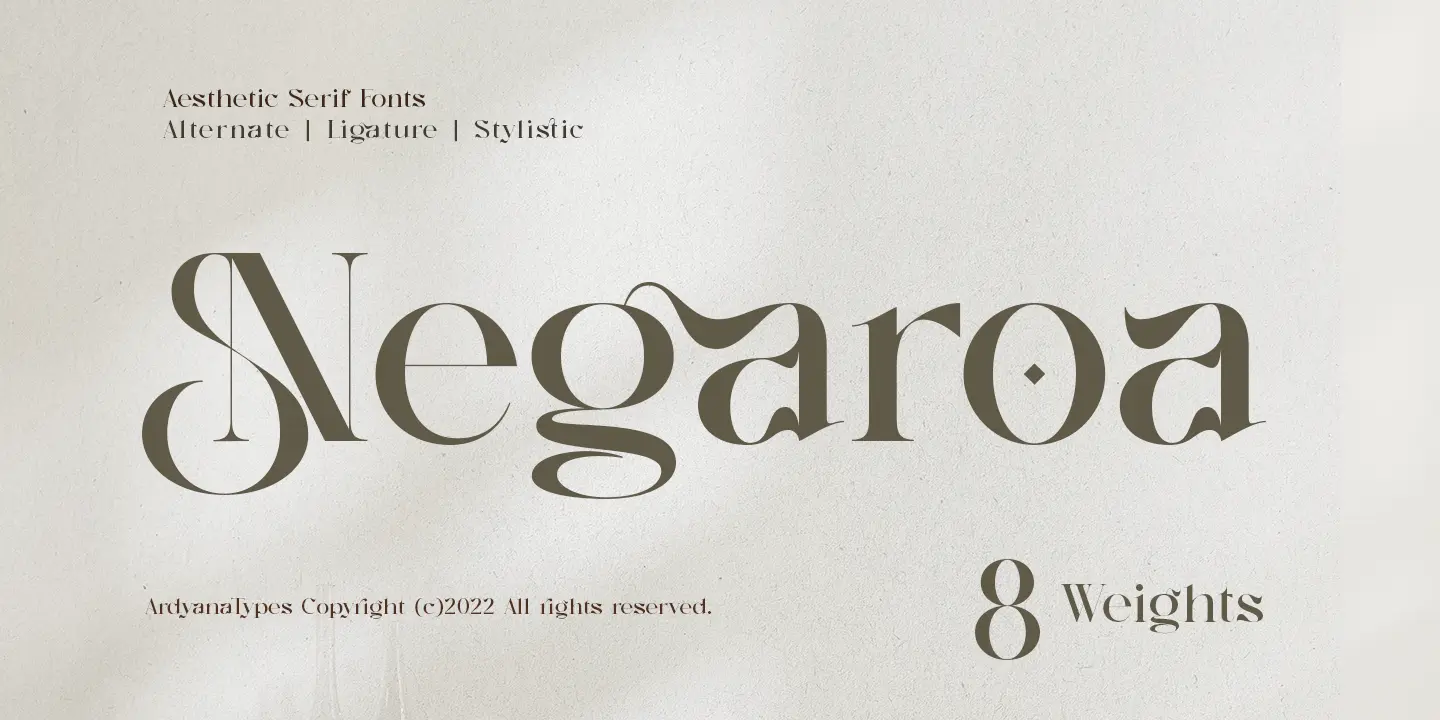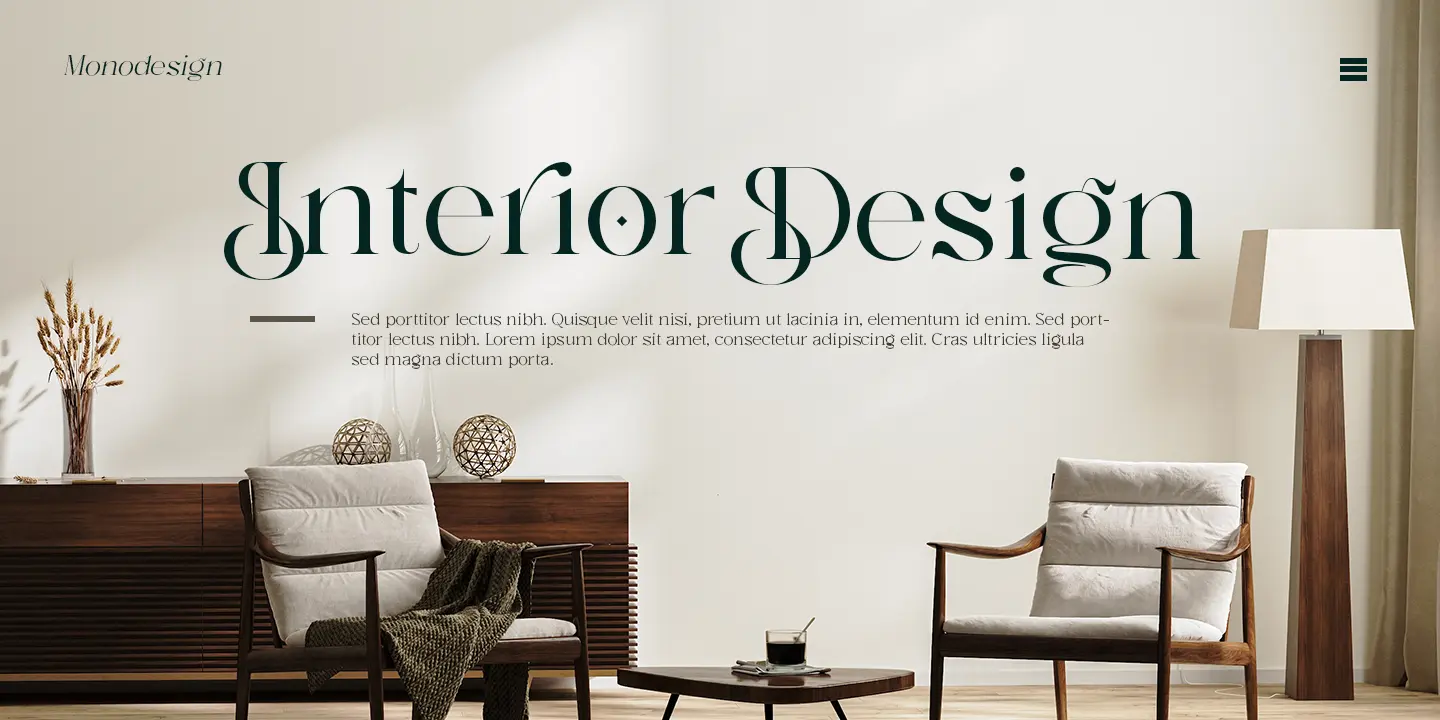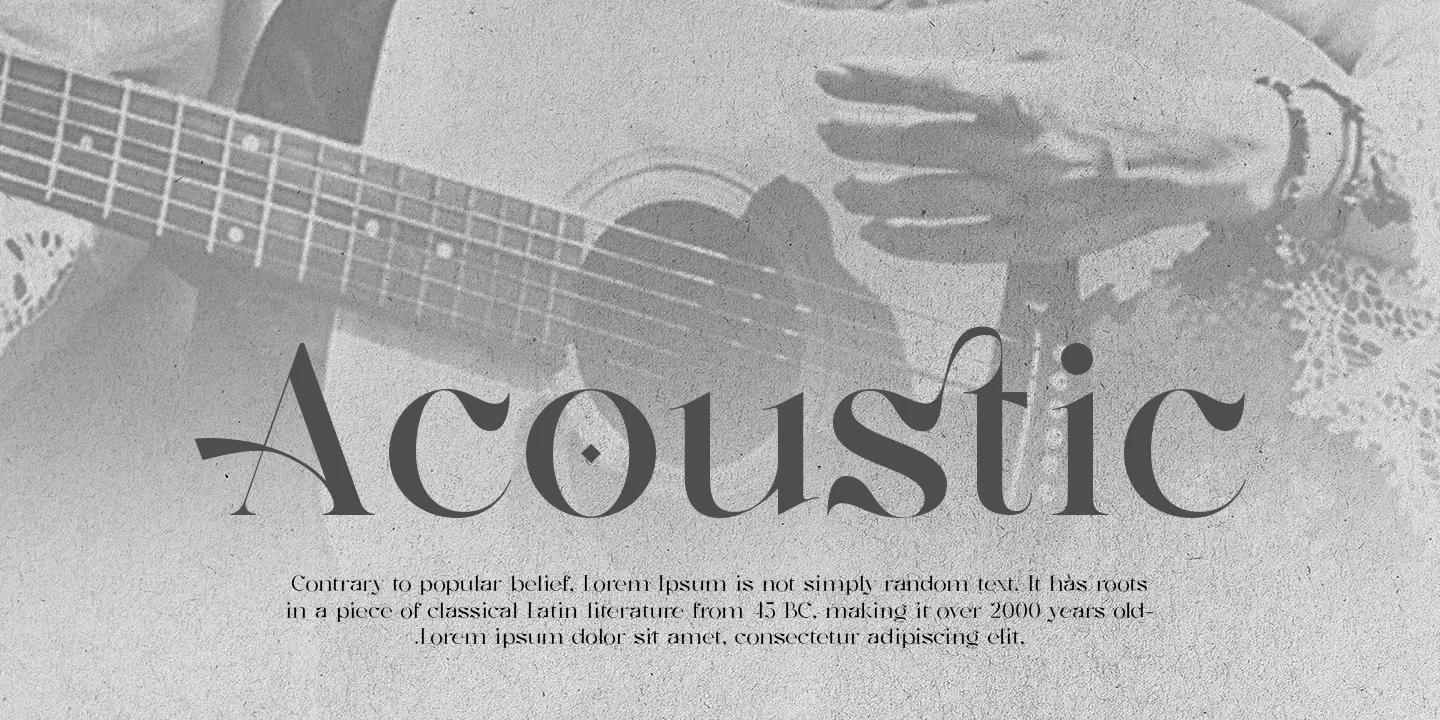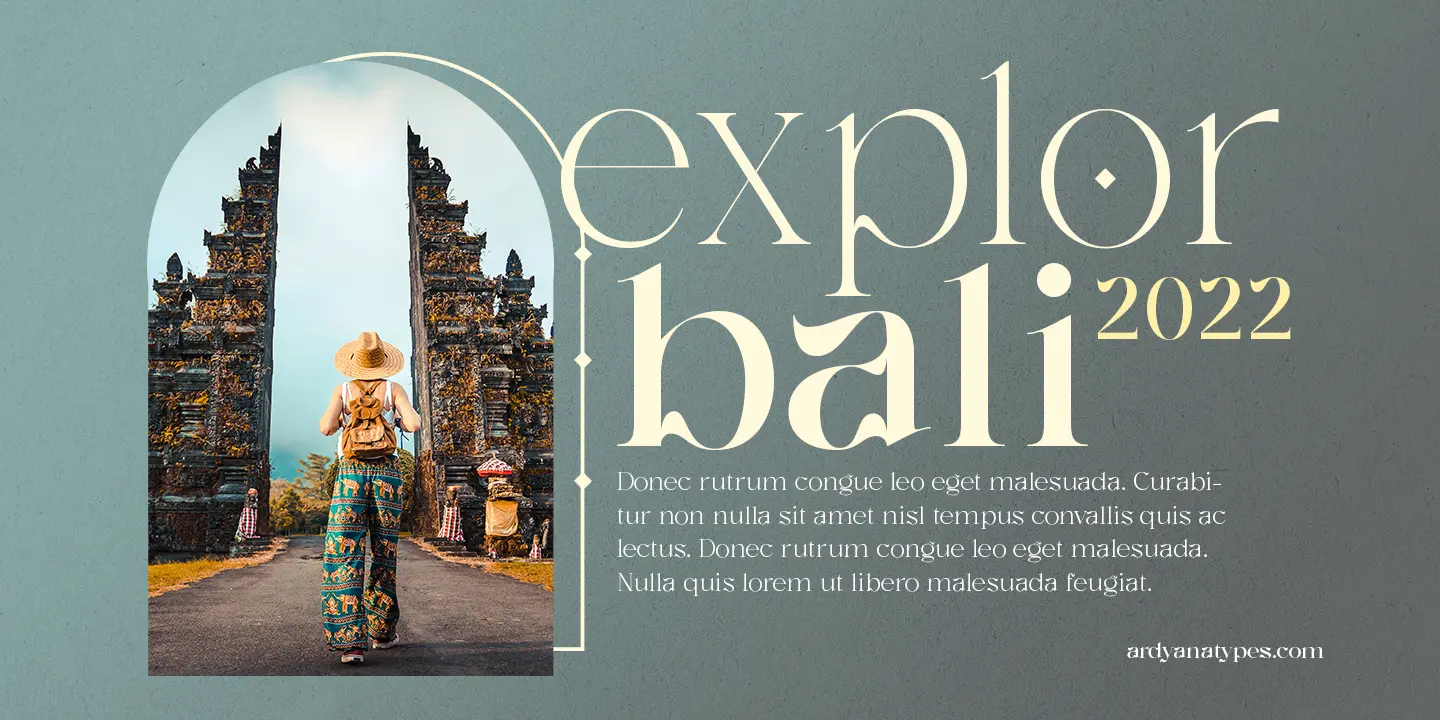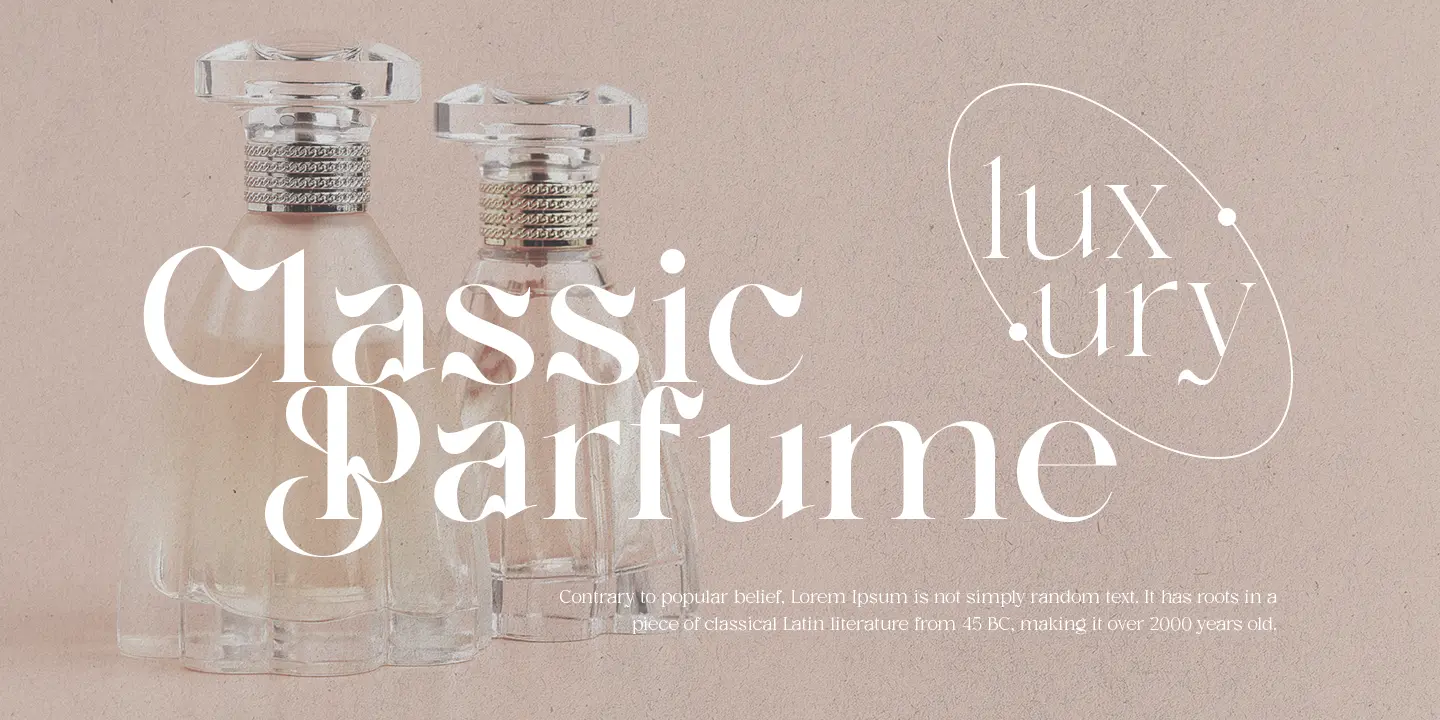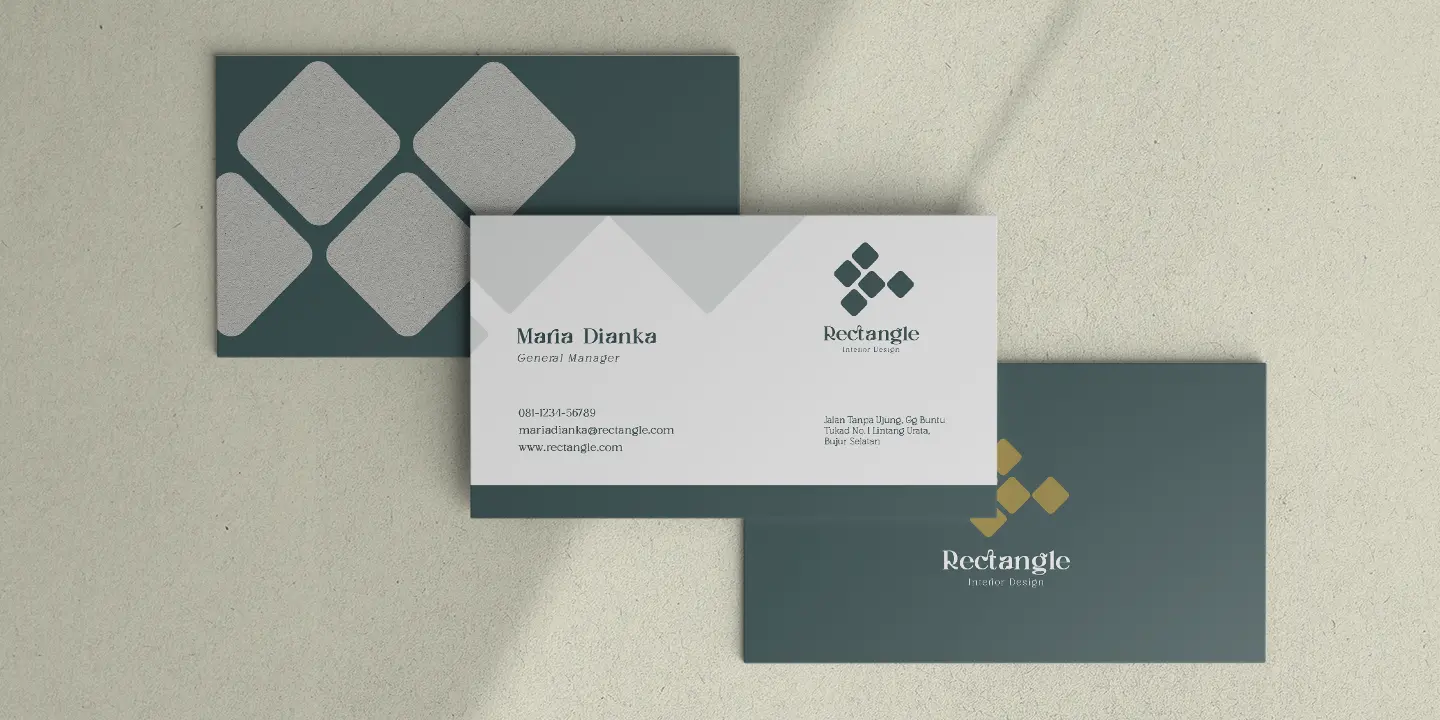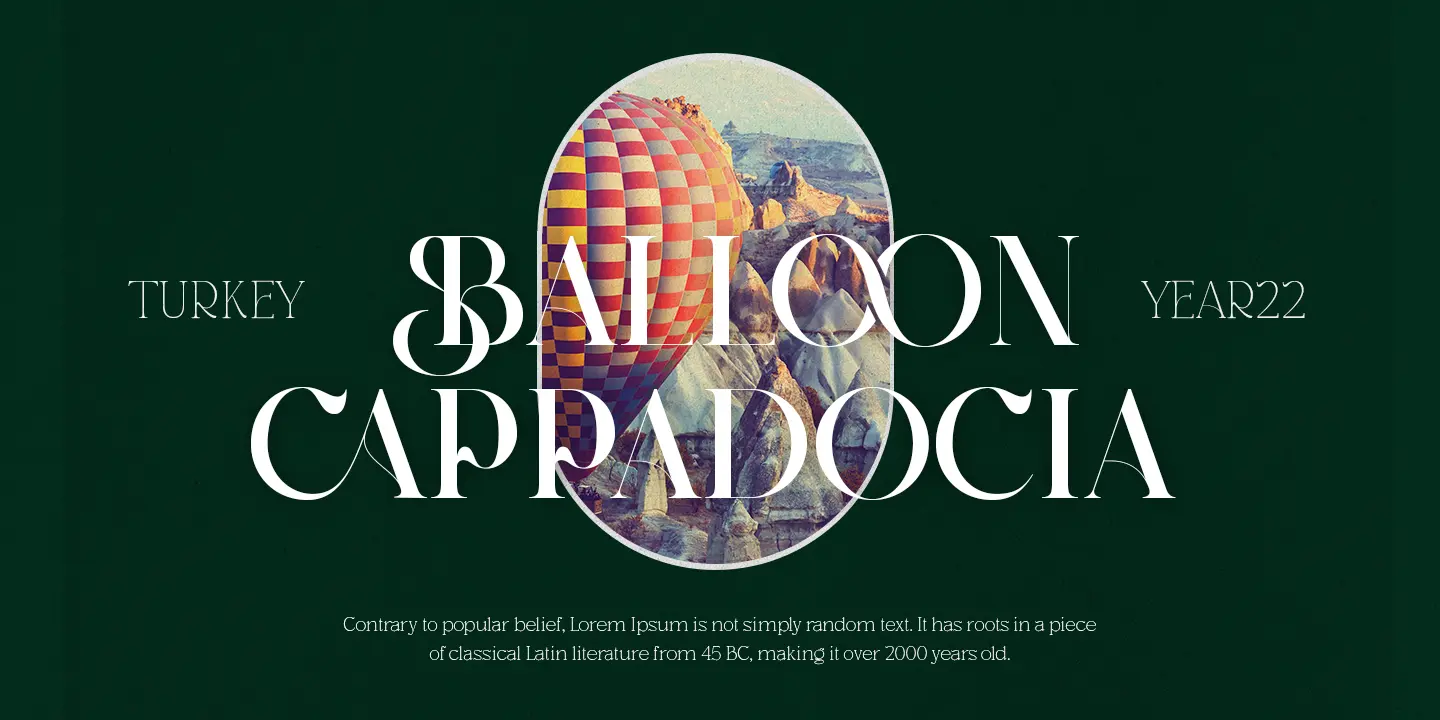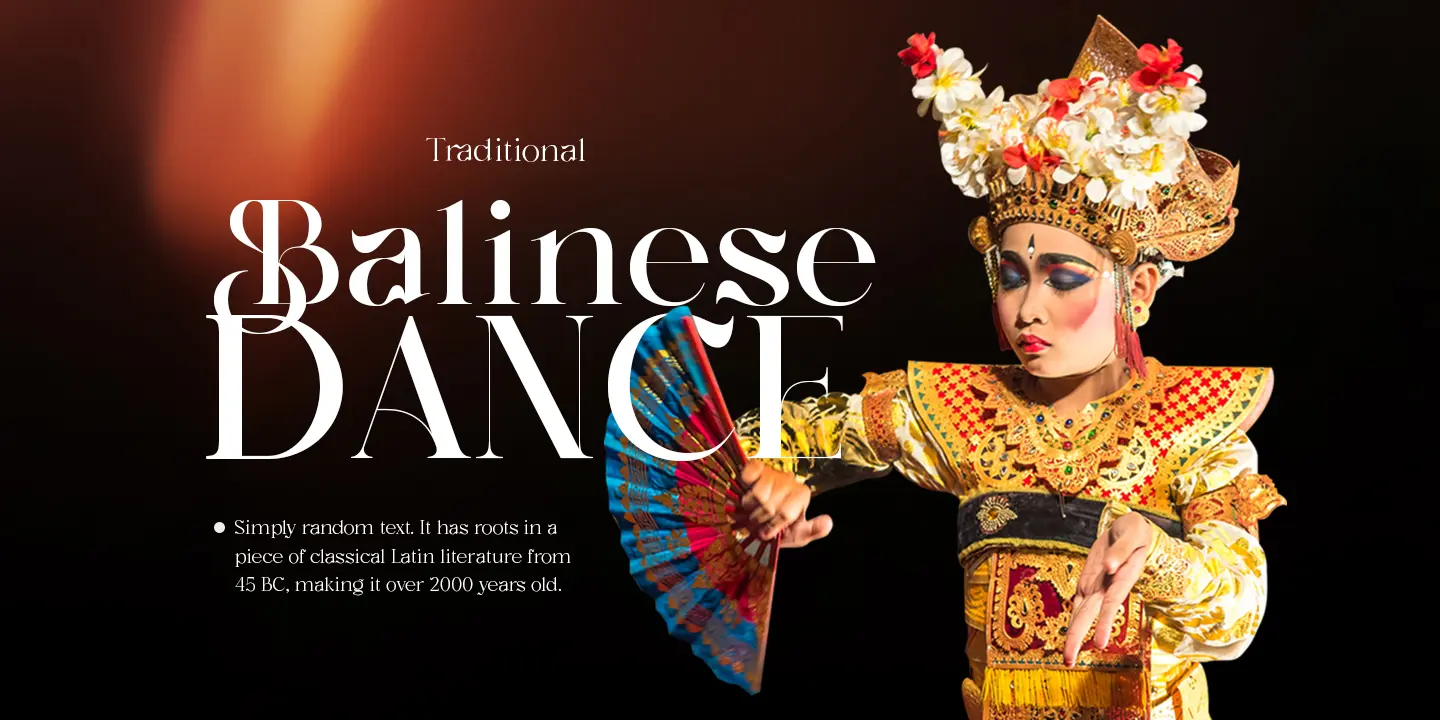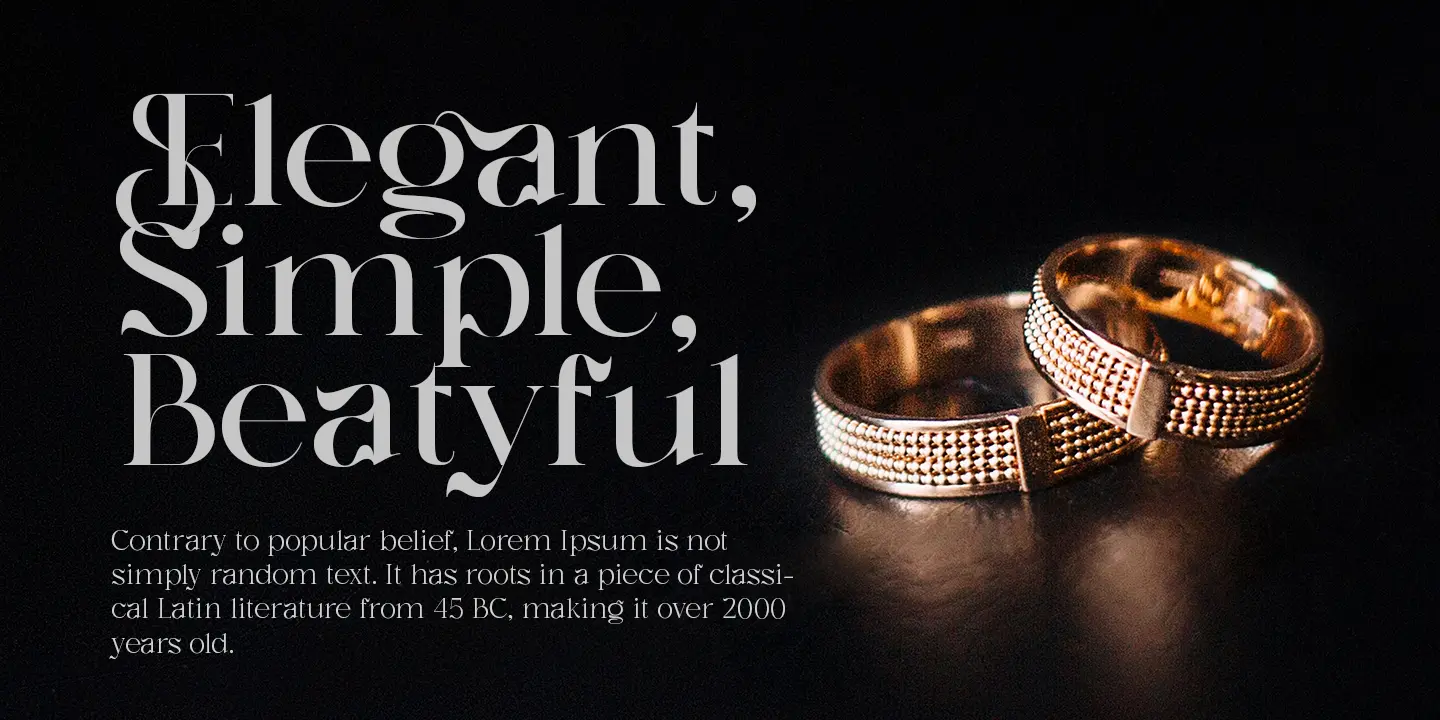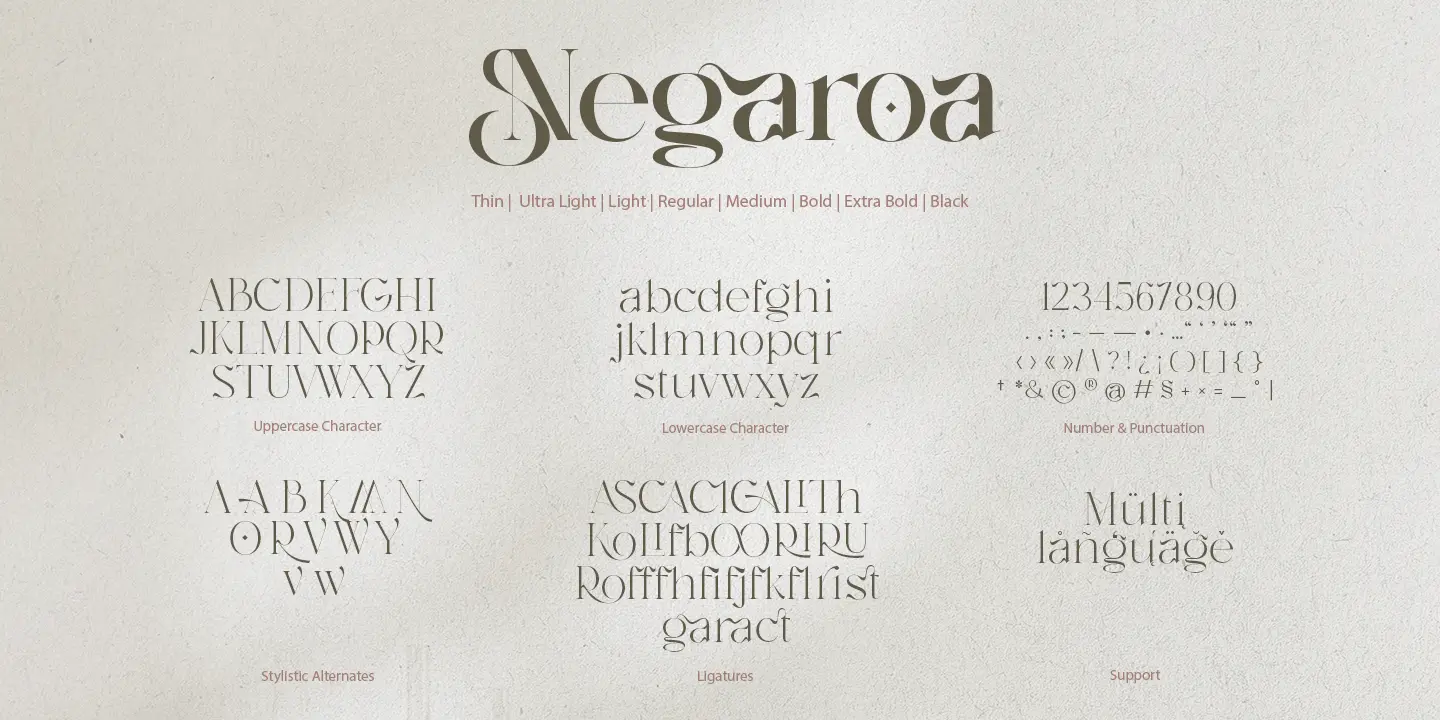
Negaroa - Aesthetic Serif
8 Styles
Negaroa comes with an aesthetic style, and the serif-type tagline is modern and elegant. This font comes in eight thickness levels, from thin to black to suit your needs. Negaroa is also equipped with the latest professional characteristics that can present an elegant and attractive identity for your company or project for business purposes. It goes well with modern serifs and scripts depicted or stand firm as a title and brand representative for an elegant look.
Negaroa also comes with multiple languages, making it easy to use for any country and language use. It also comes with alternative Ligatures and styles to make your designs more attractive. Negaroa is suitable for branding projects and various design purposes such as business cards, name tags, uniforms as a brand enhancement. Advertisements, posters, invitations, branding, logos, magazines, merchandise, presentations, etc.